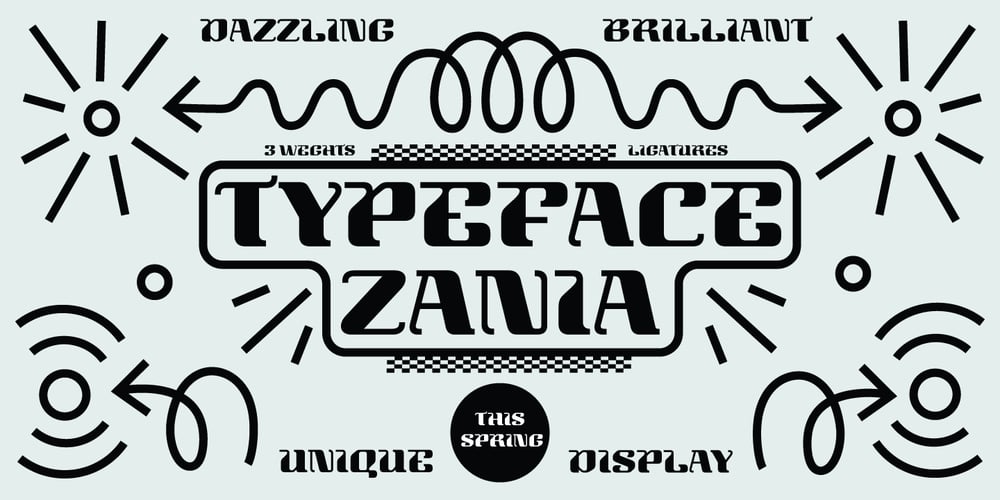
Zania Font Family was designed by Agnieszka Olszewska and published by Agnieszka Ewa Olszewska. Zania contains 3 styles and family package options. Zania is a display typeface. Its characteristic element is cutting in the stem that makes this font very memorable and easy to recognize. Contains stylistic alternates, ligatures, diacritics, and OpenType features that will help you make your project more unique. Has an experimental vibe and nice movement from left to the right thanks to serifs placed in the top left and bottom right part of the letter. It has smooth edges that make it look more friendly. The letter contrast is high. Looks good in logotypes, branding, magazine titles, book covers, posters.